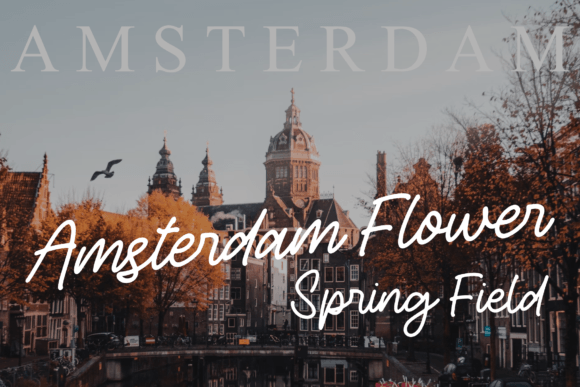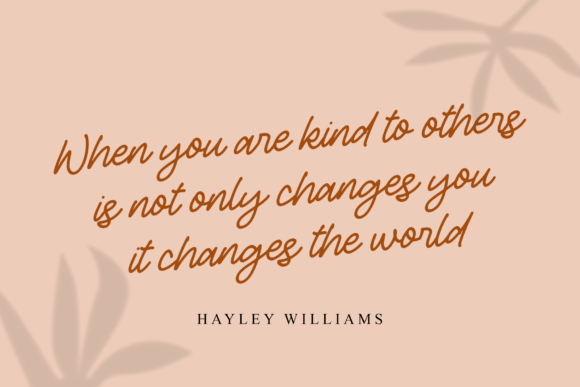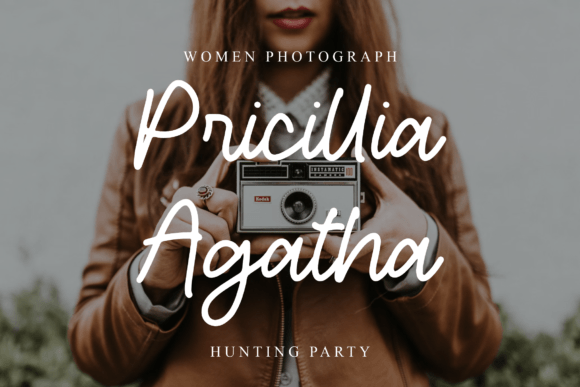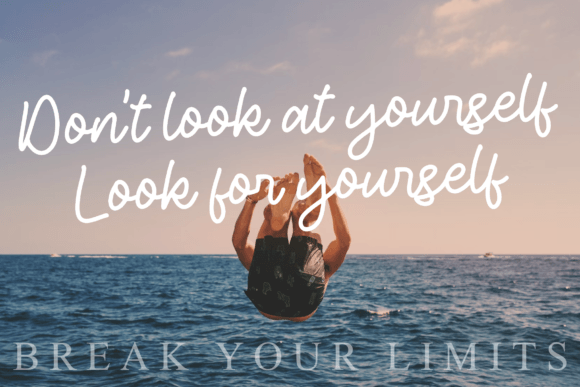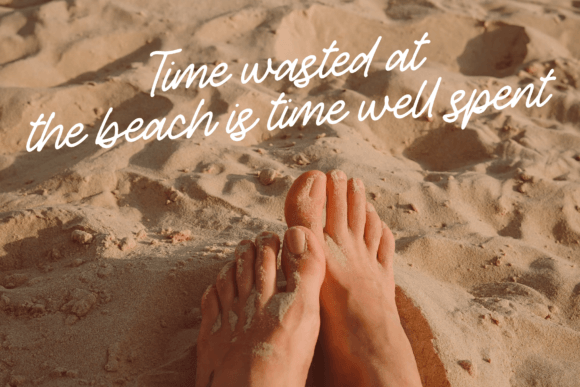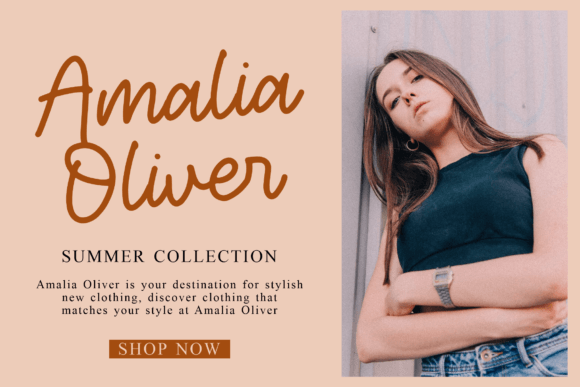
Introducing Bandeyla Font: Elevate Your Designs with a Stylish and Modern Handwritten Script
In the world of typography, a good font can make all the difference in the success of a design project. Whether you’re a seasoned designer or a crafty DIY enthusiast, having the right font in your arsenal can elevate your creations from ordinary to extraordinary. That’s where Bandeyla Font comes in – a stylish and modern handwritten script font that’s sure to become an incredible asset to your font library.
What is Bandeyla Font?
Bandeyla Font is a beautiful, hand-crafted script font that’s perfect for adding a touch of elegance and sophistication to any design project. With its flowing lines, beautiful swashes, and intricate details, Bandeyla Font is sure to capture the attention of your audience and leave a lasting impression.
Key Features of Bandeyla Font
- Handwritten Script Style: Bandeyla Font boasts a stunning handwritten script style that’s perfect for creating beautiful headings, titles, and text.
- Modern and Stylish: This font is designed to be modern and stylish, making it perfect for a wide range of design projects, from branding and advertising to packaging and more.
- Highly Versatile: Whether you’re designing for print or digital, Bandeyla Font is highly versatile and can be used for a wide range of applications.
- Elegant Swashes: The font features beautiful swashes that add an extra touch of elegance and sophistication to your designs.
Why Choose Bandeyla Font?
So, why choose Bandeyla Font over other fonts on the market? Here are just a few reasons why this font stands out from the rest:
- Unique and Eye-Catching: Bandeyla Font is a unique and eye-catching font that’s sure to grab the attention of your audience.
- Easy to Read: Despite its elegant and cursive style, Bandeyla Font is easy to read, making it perfect for body text and longer blocks of text.
- High-Quality Design: This font is designed to the highest standards, ensuring that it looks great in any size or resolution.
- Time-Saving: With Bandeyla Font, you can save time and effort in your design projects, as this font can be used for a wide range of applications.
How to Use Bandeyla Font
So, how can you use Bandeyla Font in your design projects? Here are just a few ideas to get you started:
- Branding and Advertising: Use Bandeyla Font to create stunning logos, advertisements, and marketing materials that grab the attention of your audience.
- Packaging Design: Add a touch of elegance and sophistication to your packaging designs with Bandeyla Font.
- Digital Design: Use Bandeyla Font in your digital designs, such as website headers, social media graphics, and more.
- Crafting and DIY Projects: Bandeyla Font is also perfect for crafty DIY enthusiasts, and can be used for a wide range of projects, from scrapbooking to card making.
In conclusion, Bandeyla Font is a stylish and modern handwritten script font that’s sure to become an incredible asset to your font library. With its unique and eye-catching design, high-quality construction, and versatility, this font is perfect for a wide range of design projects. Whether you’re a seasoned designer or a crafty DIY enthusiast, Bandeyla Font is sure to elevate your creations and help you achieve professional-looking results.